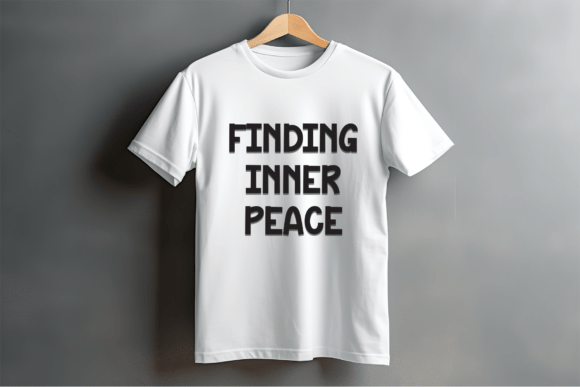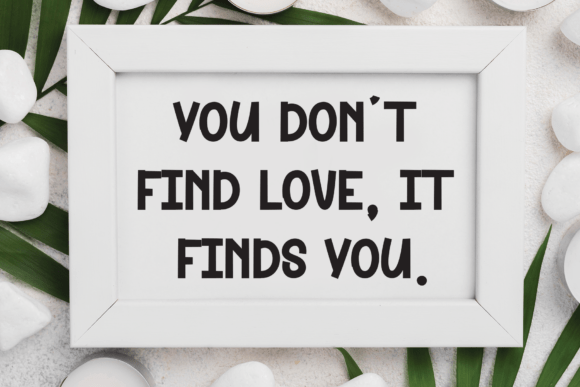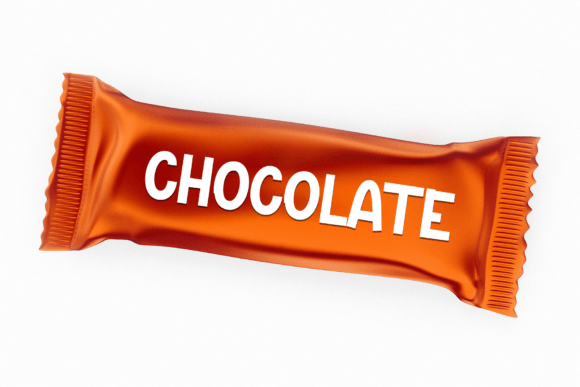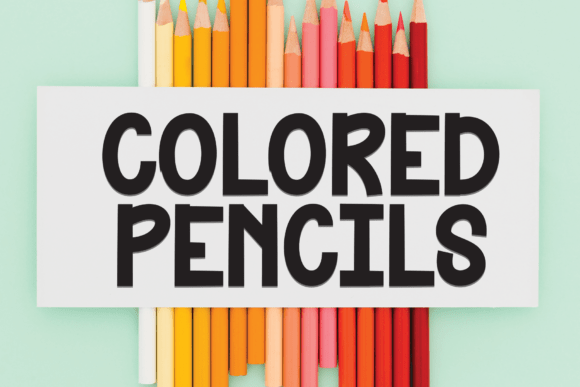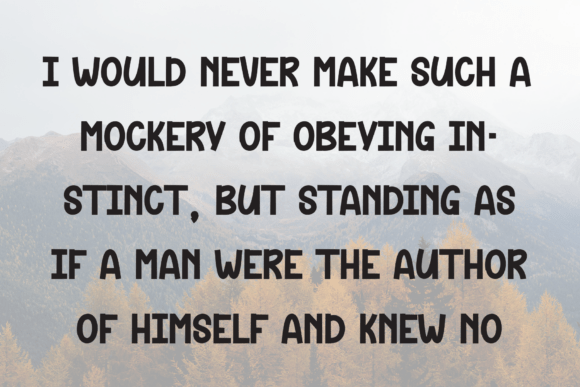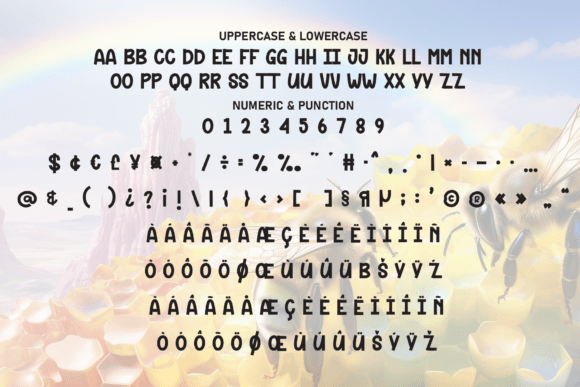
A Dash of Whimsy: Unlocking the Magic of Handwritten Design
Have you ever been rummaging through your craft box, searching for the perfect combination of colors and textures to bring your latest project to life? The excitement builds as you gather your materials, and the anticipation of what could be created is almost palpable. For designers and creatives, this is the moment when inspiration strikes, and the possibilities are endless.
Enter the Honey Rainbow Font, a charming and approachable handwritten display font that exudes sweetness and friendliness. This delightful font is masterfully designed for crafting elegant wedding invitations, heartfelt cards, or any design yearning for an effortless, fun splash. With the Honey Rainbow Font, designers can add a touch of whimsy and playfulness to their projects, making it a valuable addition to any creative’s toolkit.
Honey Rainbow Font Key Features
- Font Family: Honey Rainbow is a unique, hand-drawn font with a warm, sunny feel, perfect for creating a cheerful and inviting atmosphere.
- Character Set: The font includes a wide range of characters, including uppercase and lowercase letters, numbers, punctuation marks, and special symbols.
- Unique Characteristics: The font features a distinctive, hand-painted style with subtle texture and imperfections, giving it a warm, organic feel that sets it apart from more traditional fonts.
Honey Rainbow Font Review
Overall, I’m impressed with the Honey Rainbow Font. ✨ It has a unique and playful vibe that can add a touch of whimsy to any design. The font’s irregular shapes and colors give it a hand-drawn feel, which can be perfect for creating a sense of warmth and personality.
One of the standout features of this font is its versatility. ✨ It works well for a variety of projects, from children’s books to marketing materials. The font also comes in a range of colors, making it easy to match it to your brand’s aesthetic.
- ⚠️ The font may be difficult to read at smaller font sizes, as the irregular shapes can make it hard to distinguish between letters.
- ⚠️ The font is not ideal for formal or professional projects, as it may come across as too playful or childish.
Overall, I would recommend the Honey Rainbow Font for projects that require a lighthearted and creative touch. While it may have some limitations, its unique style and versatility make it a great choice for designers looking to add some personality to their designs.
To get the most out of the Honey Rainbow Font, consider the following tips:
- Use it sparingly to create visual interest.
- Pair it with solid colors or other fonts for contrast.
- Experiment with different font sizes and styles.
The Honey Rainbow Font is perfect for:
- Children’s party decorations and materials.
Alternatives to Honey Rainbow Font
Great Vibes is a playful, cursive script font that is perfect for adding a touch of whimsy to your designs. It features a more fluid and organic feel compared to Honey Rainbow Font, making it ideal for titles, headings, and other text elements where you want to create a sense of movement and energy.
Comparison: Great Vibes has a more relaxed, handwritten feel, whereas Honey Rainbow Font is more vibrant and bold. Use Great Vibes when you want to convey a sense of fun and playfulness, and Honey Rainbow Font when you want to add a pop of color and energy.
Alex Brush is a elegant, handwritten font that is perfect for adding a touch of sophistication to your designs. It features a more refined and polished feel compared to Honey Rainbow Font, making it ideal for titles, headings, and other text elements where you want to create a sense of luxury and elegance.